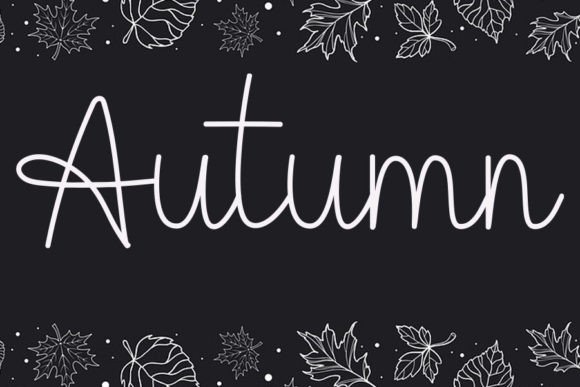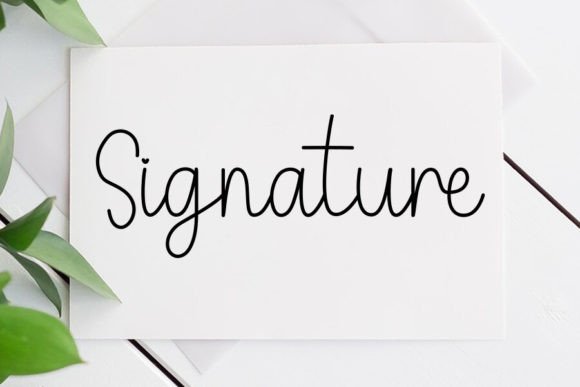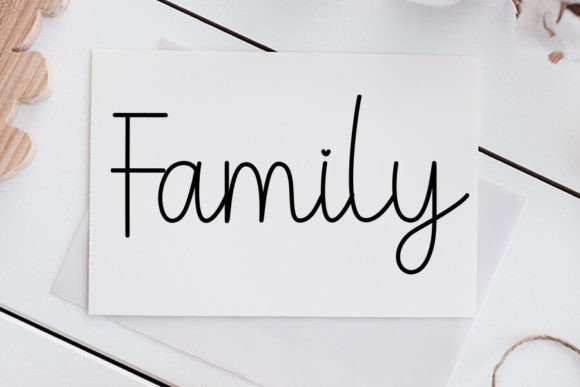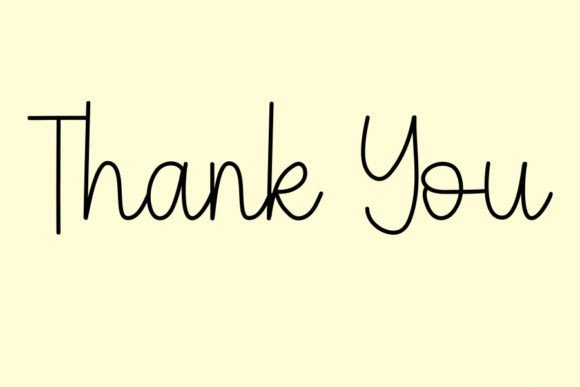
Adding a Touch of Elegance with the Autography Font
There’s nothing quite like the feeling of holding a pen to paper, watching your creative vision take shape in a beautiful handwritten script. It’s a moment that sparks joy and sets the tone for a project that’s truly special. For designers, the quest for the perfect font is an ongoing one, and it’s here that the Autography Font shines – a contemporary handwritten font that exudes timeless class and sophistication.
With its impeccable form and classic calligraphy inspiration, the Autography Font is the perfect addition to any design project looking to add a touch of elegance and refinement. Whether you’re working on a wedding invitation, a luxury brand’s marketing materials, or a high-end website, this font is sure to elevate your design to new heights.
Autography Font Key Features
- Font Family: Autography is a modern script font designed for creative and elegant typography. It is available in 2 font styles: Regular and Italic.
- Character Set: The font includes a wide range of characters, including uppercase and lowercase letters, numbers, punctuation marks, and special characters.
- Unique Characteristics: Autography Font features a unique, handwritten feel with subtle flair and connection between letters, making it perfect for creative projects, invitations, and wedding designs.
Autography Font Review
Overall, I think Autography Font is a solid choice for designers looking for a handwritten font. Here are some things that I think work well: ✨
- Unique Character: Autography Font has a distinctive character that sets it apart from other handwritten fonts. It’s perfect for adding a personal touch to your designs.
- Variety of Styles: The font comes in multiple styles, including uppercase and lowercase, which makes it versatile and easy to use.
- High-Quality Glyphs: The glyphs in Autography Font are high-quality and well-crafted, making it a great choice for designers who want a professional-looking font.
- Limited Expressiveness: While Autography Font is great for adding a personal touch, it can feel a bit limited in terms of expressiveness. It’s not ideal for designs that require a lot of emphasis or dramatic flair.
- May Not Work for Small Text: Due to its handwritten nature, Autography Font may not be the best choice for small text or body copy. It can be difficult to read at small sizes.
Overall, I think Autography Font is a great choice for designers who want a unique, handwritten font for their designs. While it may have some limitations, it’s a solid choice for projects that require a personal touch.
Autography font works well for creating handwritten-style text, perfect for invitations, posters, and social media graphics.
Autography font is ideal for creating custom typography, logos, and branding materials.
Autography font works well for creating engaging presentations, reports, and documents.
The Autography font is perfect for:
- Creating handwritten-style text
- Designing custom typography and logos
- Developing branding materials
- Enhancing presentations and reports
Alternatives to Autography Font for Designers
Carolyna Pro is a modern calligraphy font that offers a wide range of styles and ligatures. It’s ideal for designers who want to create elegant and sophisticated designs, such as wedding invitations, branding materials, and packaging. Compared to Autography Font, Carolyna Pro has a more refined and polished look, making it suitable for high-end projects.
Great Vibes is a beautiful and elegant script font that’s perfect for designers who want to create a warm and inviting atmosphere. It’s ideal for projects such as magazine articles, book covers, and advertising materials. Compared to Autography Font, Great Vibes has a more fluid and organic feel, making it suitable for creative and artistic projects.